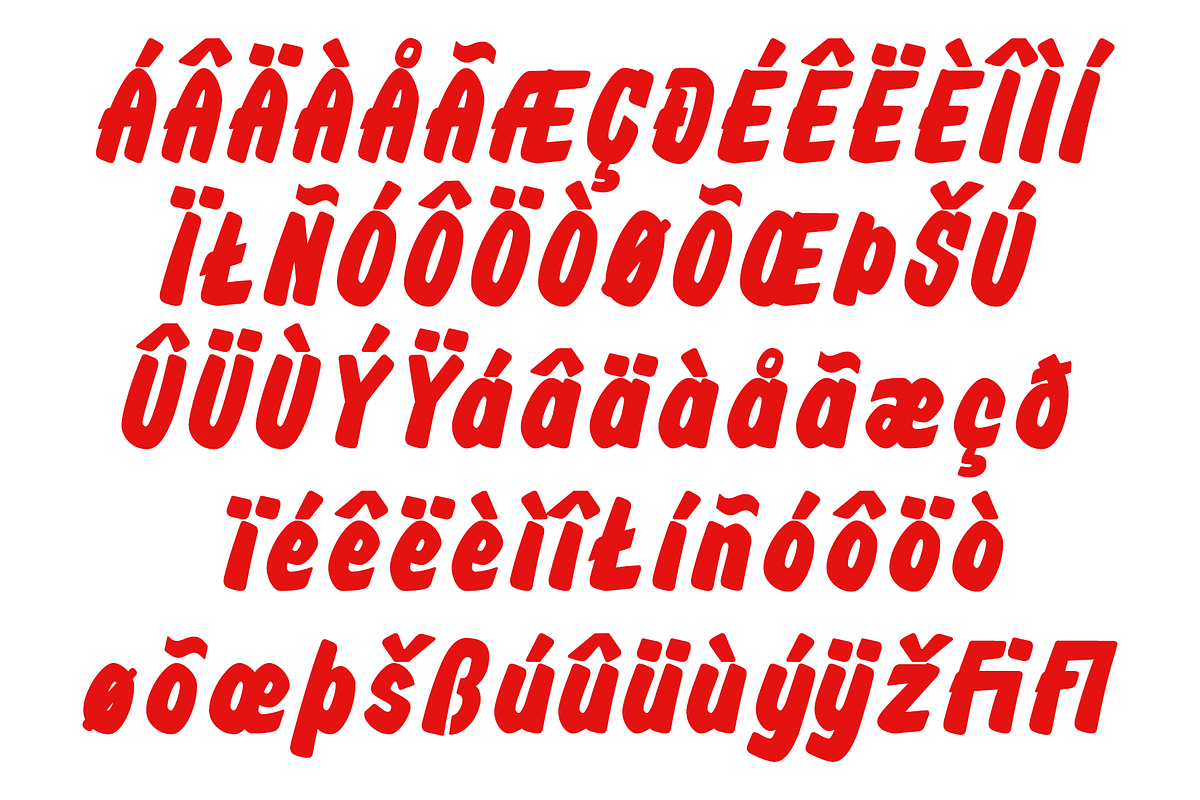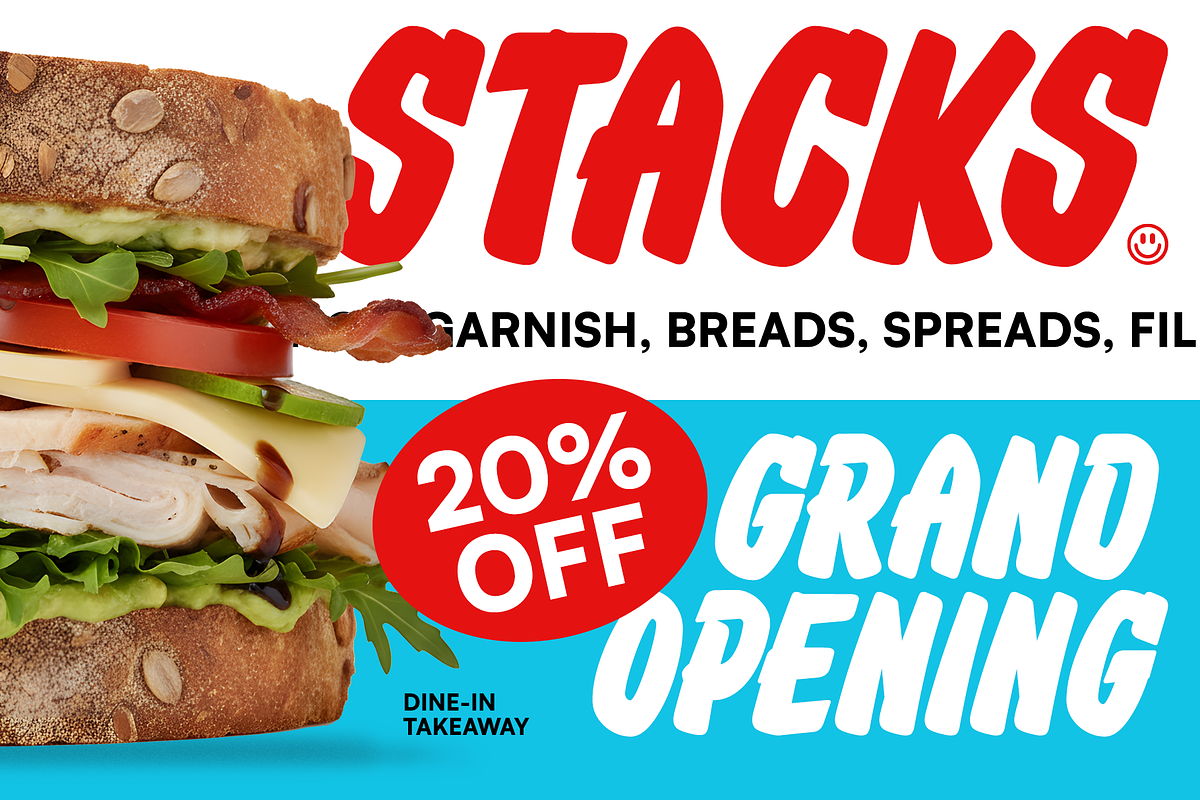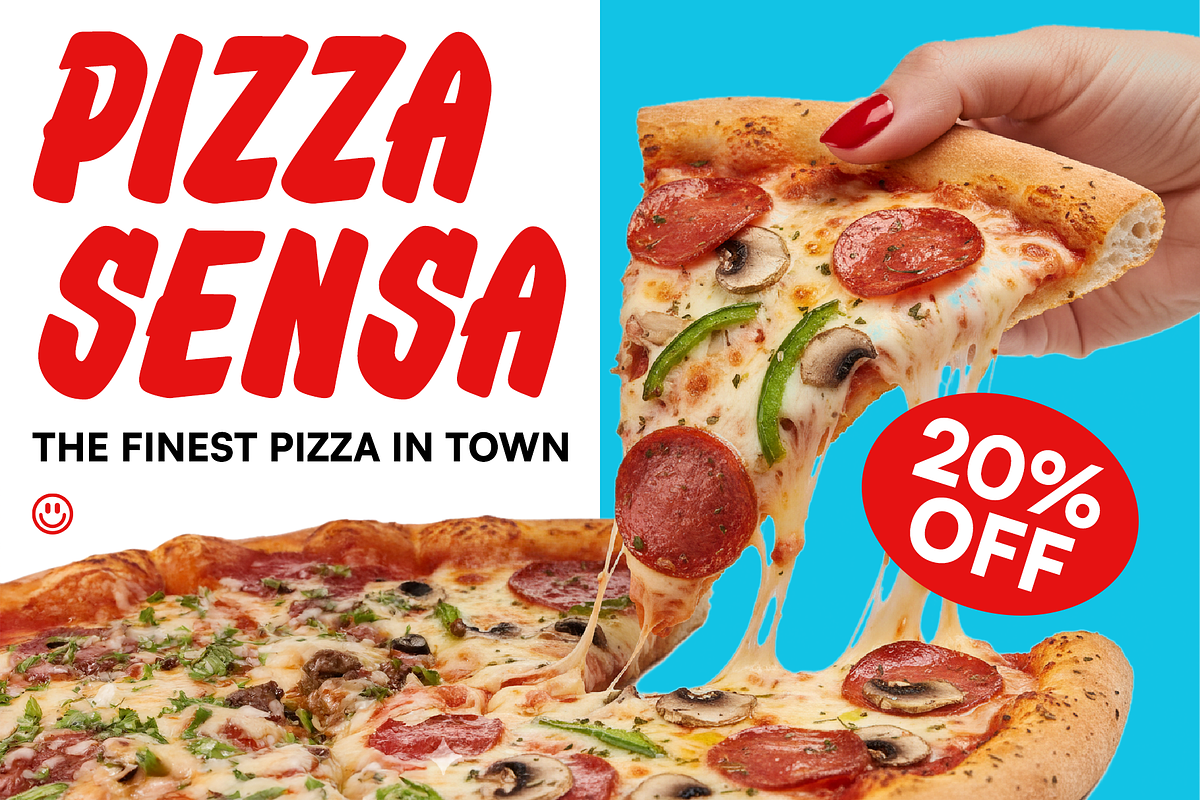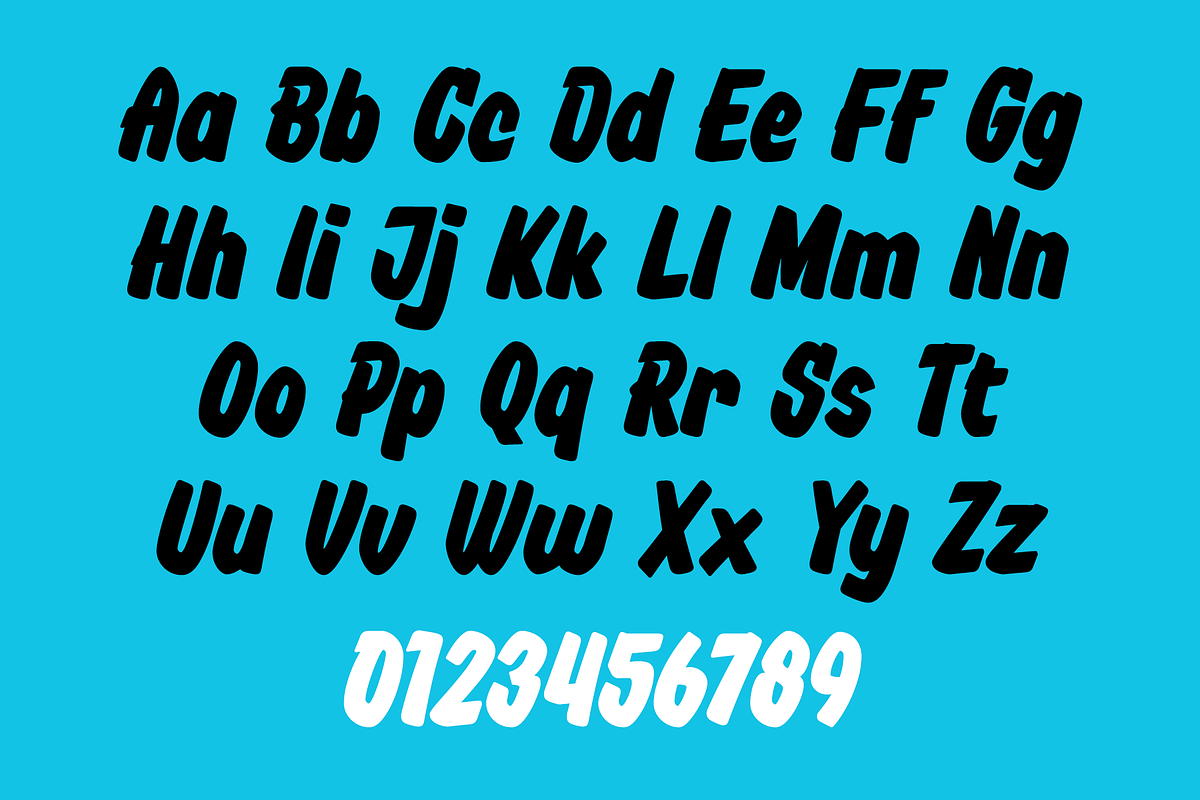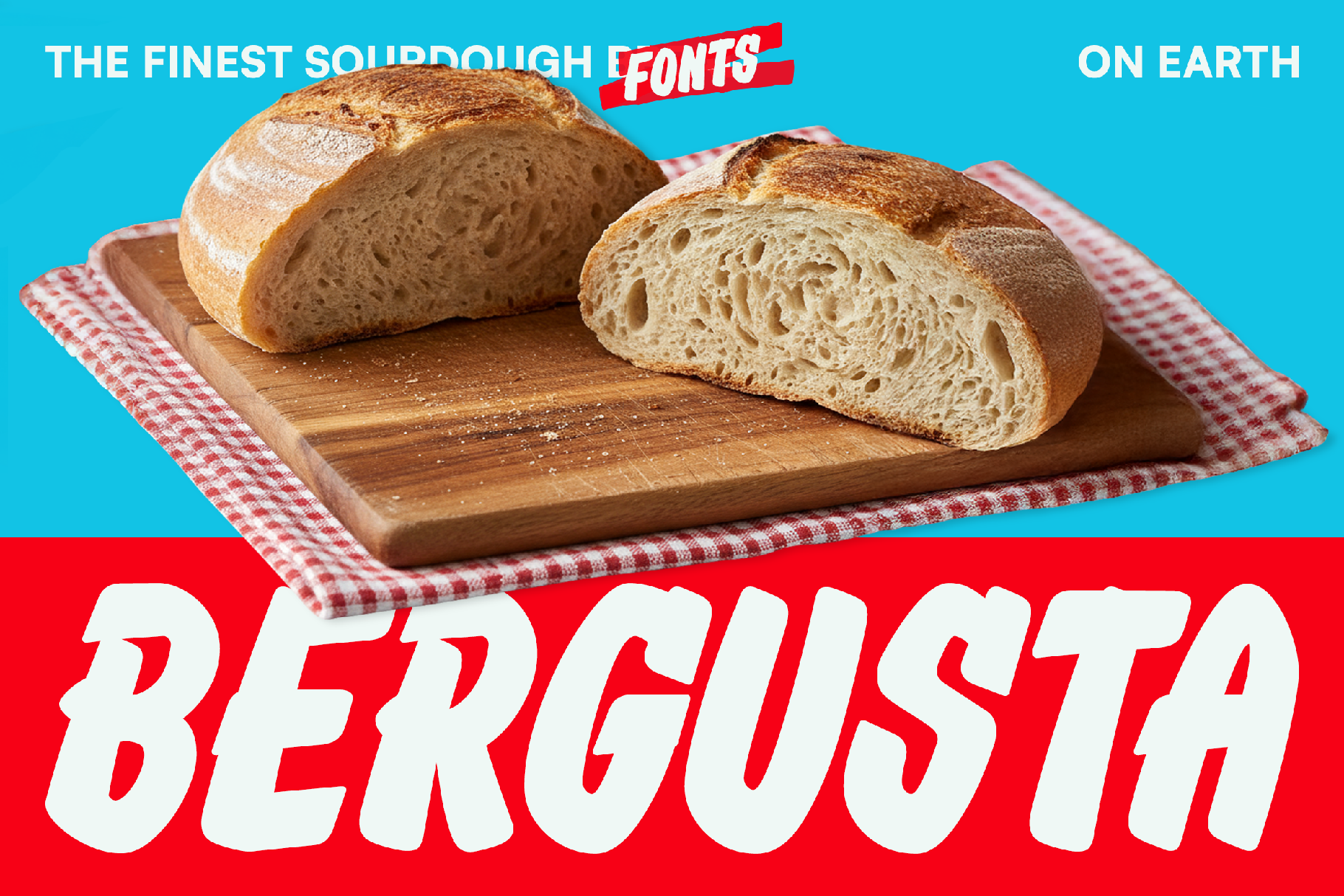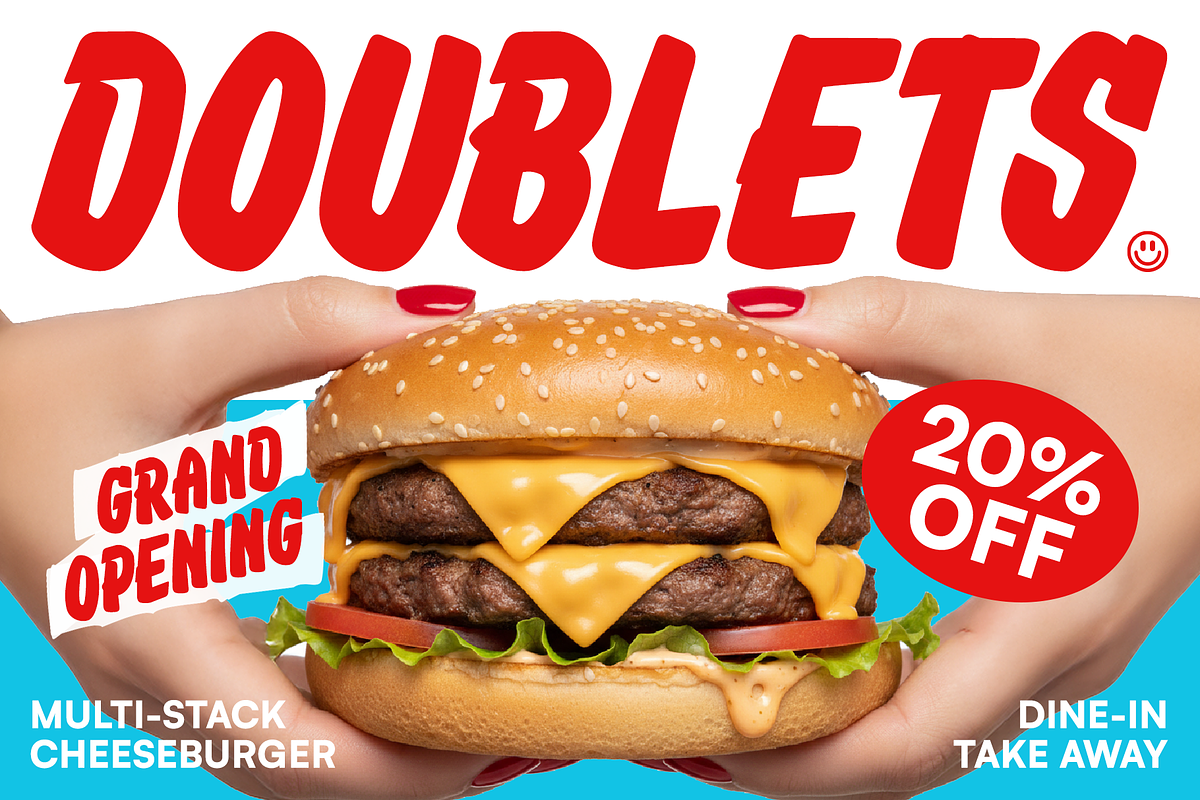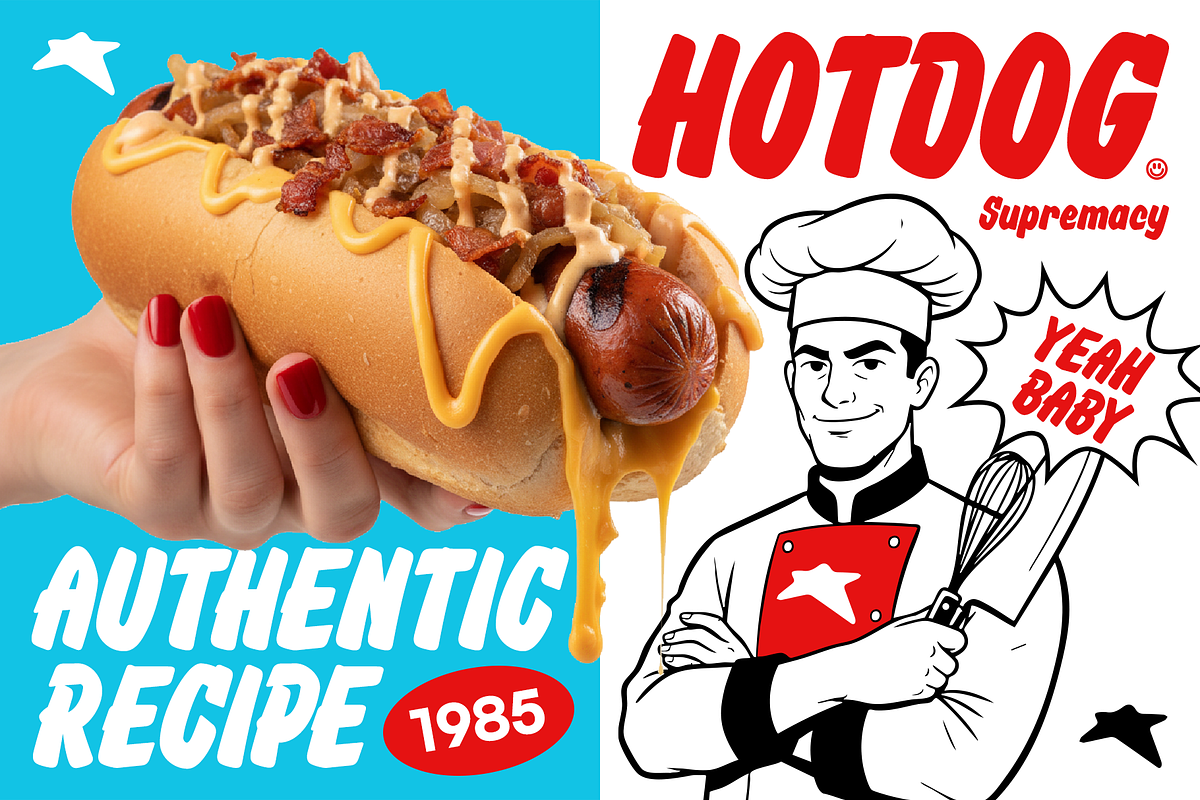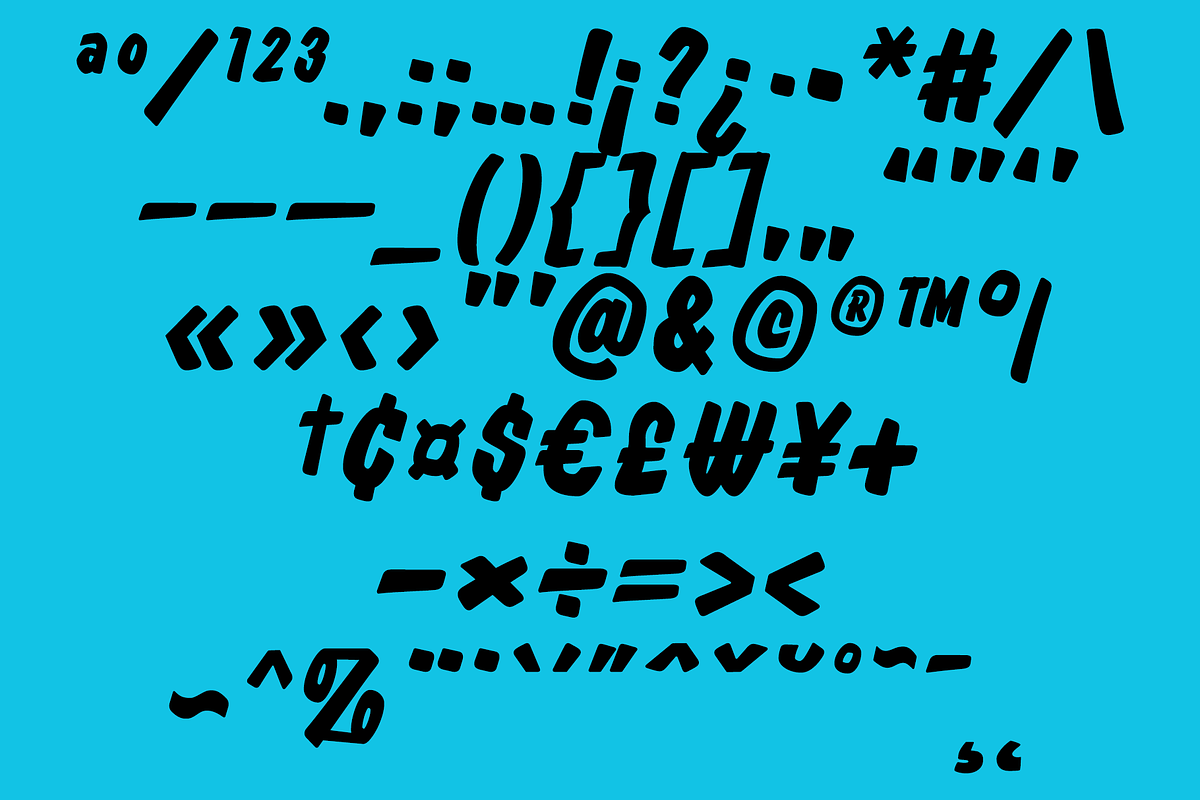
Bergusta - Vintage Sign Retro Fonts
Bring the bold, hand-painted soul of 70s and 80s Americana to your menu.
There’s a reason the diners and burger joints of the late 20th century felt so welcoming—it was the human touch. Bergusta is a tribute to that era of craftsmanship. Inspired by the iconic, sun-drenched signage of American main streets, Bergusta captures the thick, buttery strokes of a master sign painter’s brush.
With its heavyweight presence and a dynamic forward lean, Bergusta doesn't just sit on a page; it moves. It’s designed with a natural, organic flow that mimics the slight imperfections and soulful curves of a hand-lettered masterpiece found on a roadside pizza parlor or a bustling New York deli.
Why Bergusta is a "Must-Have" for Food Branding:
Deliciously Bold: Perfect for high-impact headlines that need to grab attention across a crowded room or a busy social media feed.
Retro Authenticity: Precisely engineered to evoke the nostalgia of 1970s and 80s advertising without feeling "dated."
Built for Appetite: The soft, rounded terminals and thick stems are visually "tasty," making it the ideal choice for burger branding, pizza boxes, sandwich menus, and food trucks.
Versatile Personality: While it excels in F&B, its "Main Street" vibe works beautifully for vintage apparel, sports logos, and bold editorial layouts.
"In a world of clean, sterile digital fonts, Bergusta brings the grease, the sizzle, and the soul back to design."